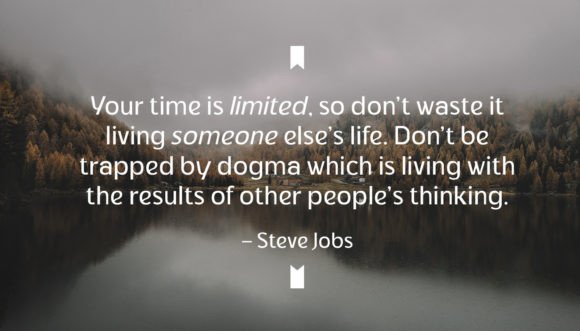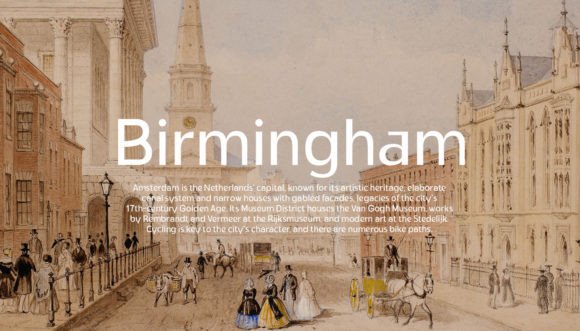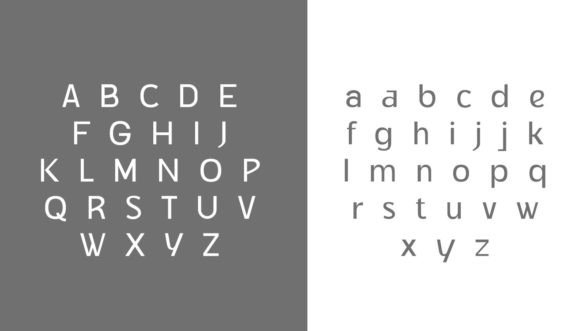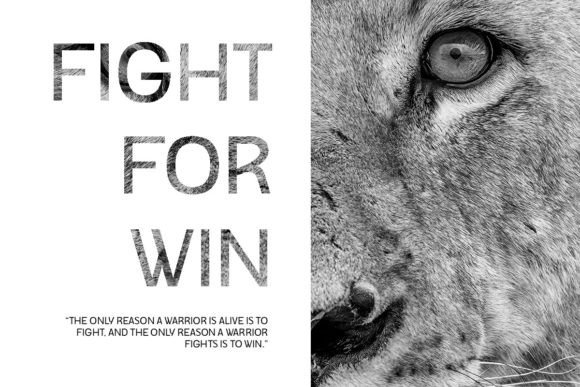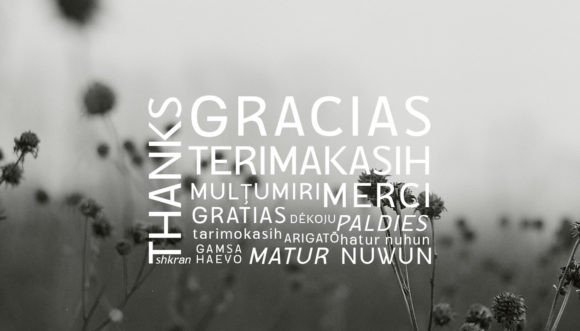
Introduction to Mulheim Font Font
Fonts play a crucial role in design, and the Mulheim Font font is a typeface that brings both character and versatility to any project. Whether you’re working on a branding project, a website, or a print design, the Mulheim Font font offers a unique style that can elevate your work.
Strong, unified, and articulate, Mulheim is a utilitarian typeface inspired by the precision of a computer terminal, then tempered and softened with a hint of warmth.
Mulheim unified letterforms and tall x-height excel in user interfaces and short copy – or track it out for a sophisticated, cinematic look for titles and headlines .
Key Features of Mulheim Font Font
Why Choose Mulheim Font Font?
The Mulheim Font font is more than just a typeface – it’s a design tool that helps you communicate your message with style and clarity. Its unique character set and versatile design make it suitable for a wide range of applications, from elegant invitations to bold headlines.
With its carefully crafted letterforms and balanced proportions, the Mulheim Font font ensures readability and visual appeal across all mediums.
What makes Mulheim Font font special?
The Mulheim Font font stands out with its unique design, exceptional readability, and versatility across various design applications.